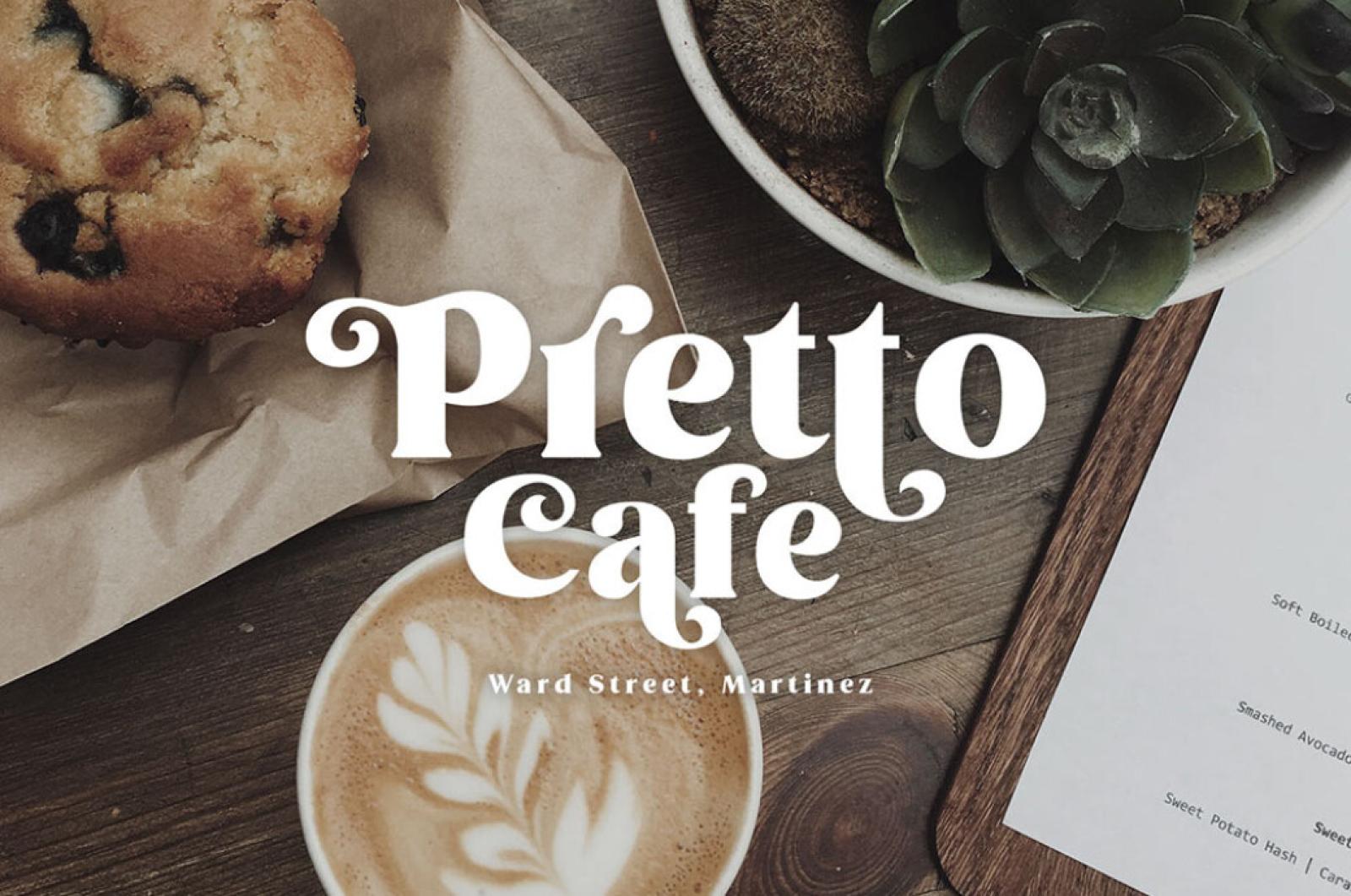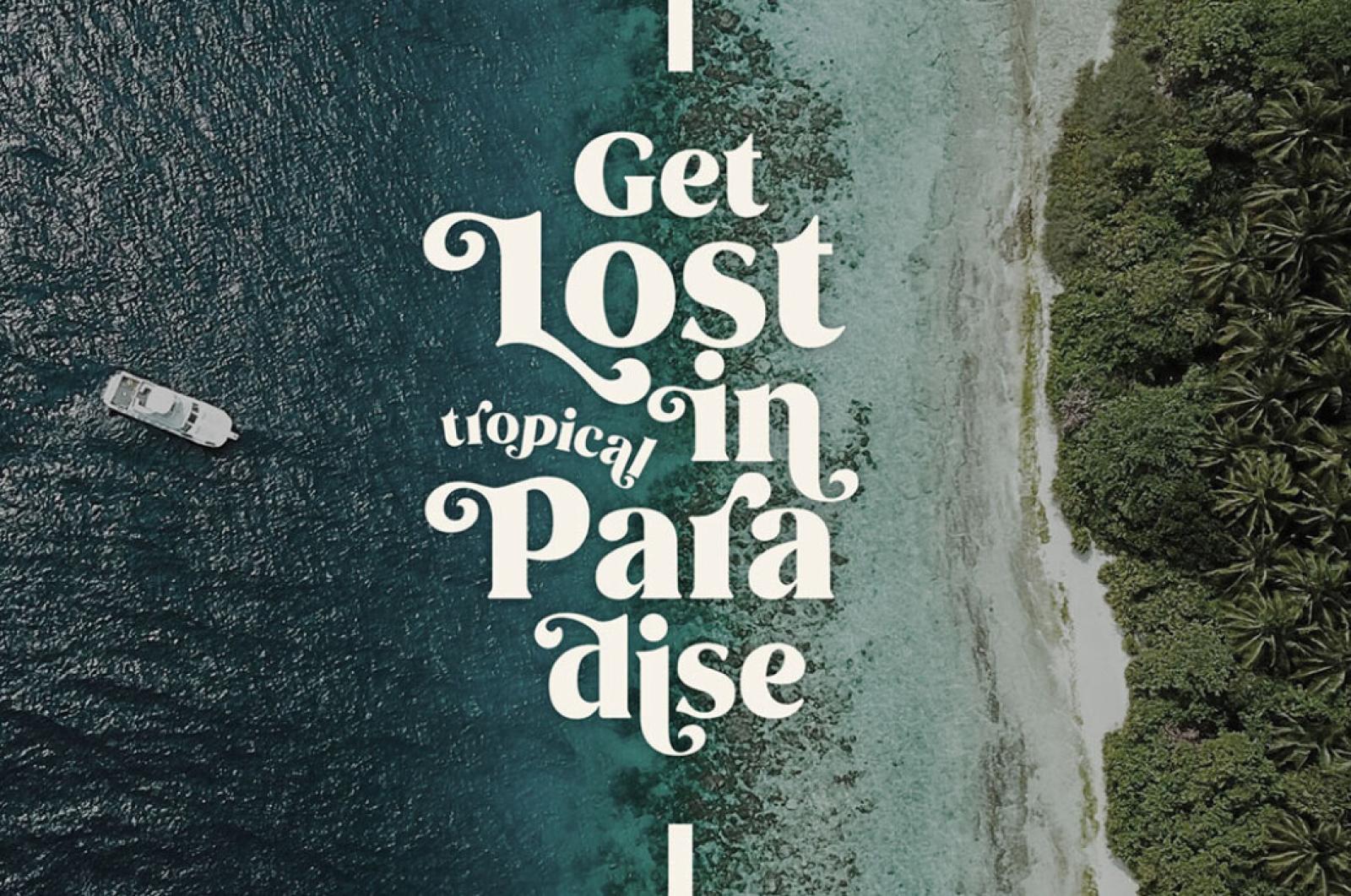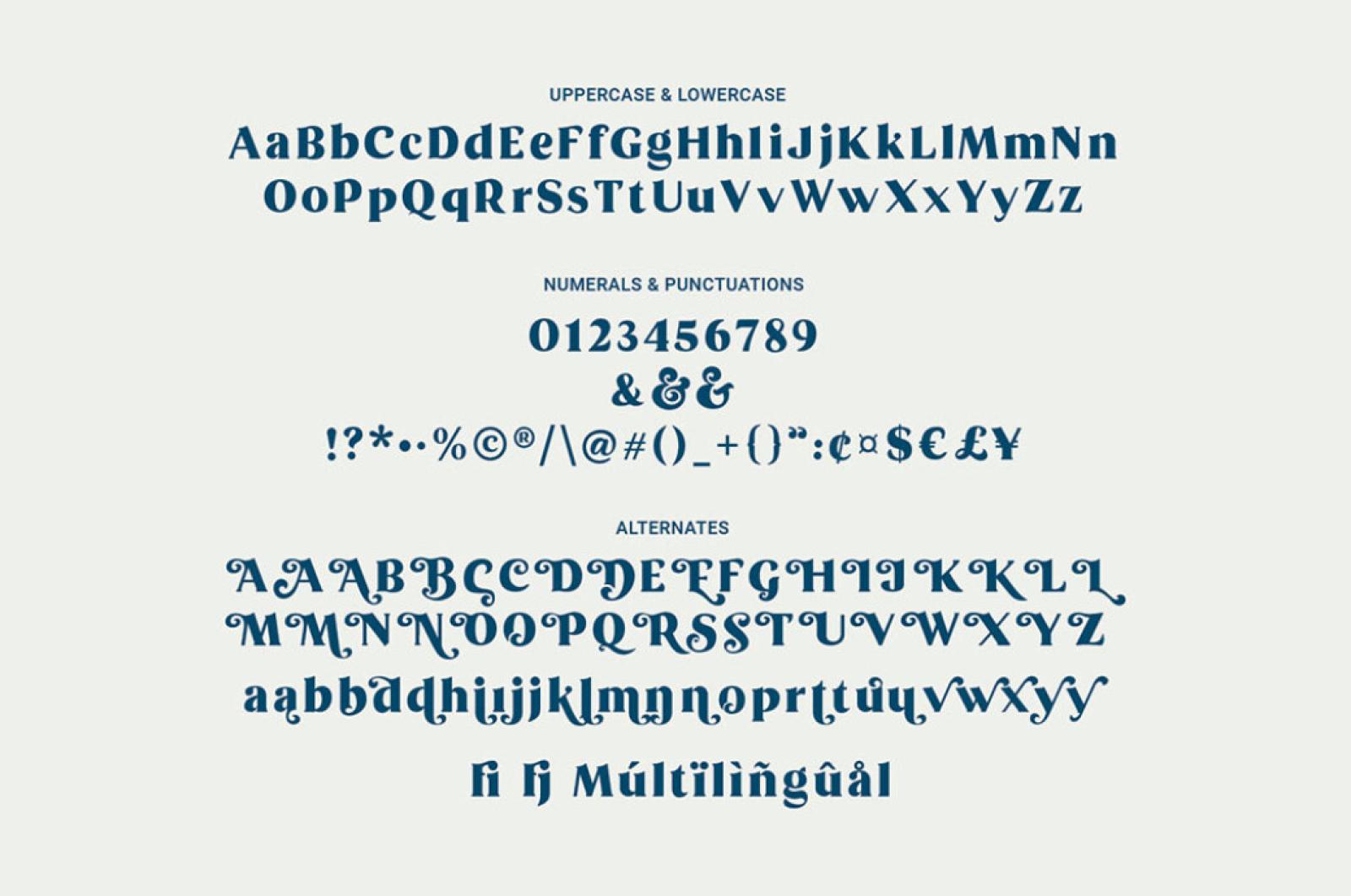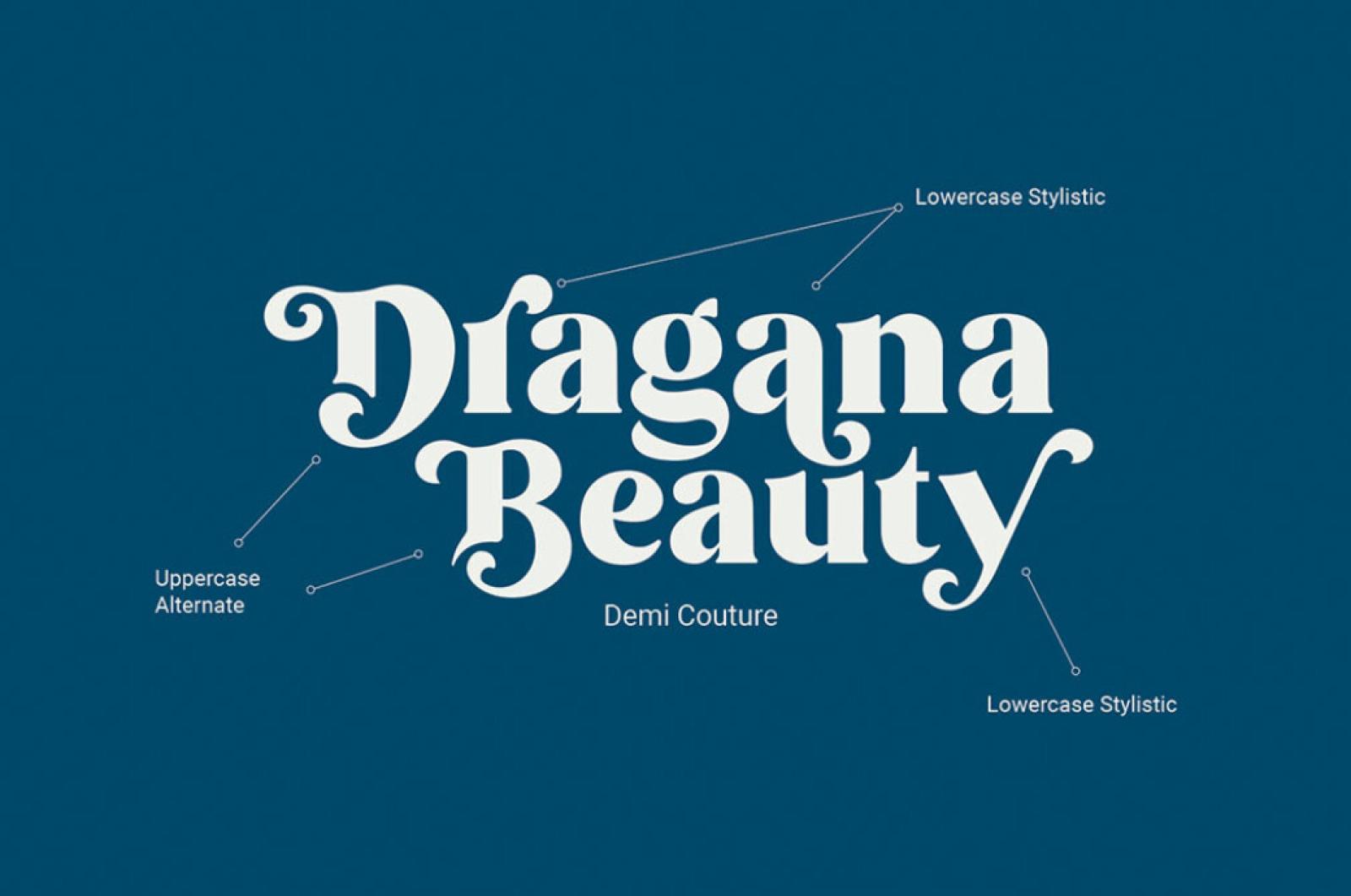
Brume Decorative Font
Easy to read, modern and elegant, stylish look these will be the first words that your client says, looking at your design with this decorative font. Are you ready to check it out?
Reserved and jaunty at the same! It comes with uppercase and lowercase, has many alternate characters with nice curves that you can arrange to create logo lettering, headlines, product packaging, t-shirt design, poster, book cover, wedding invitation, and more!